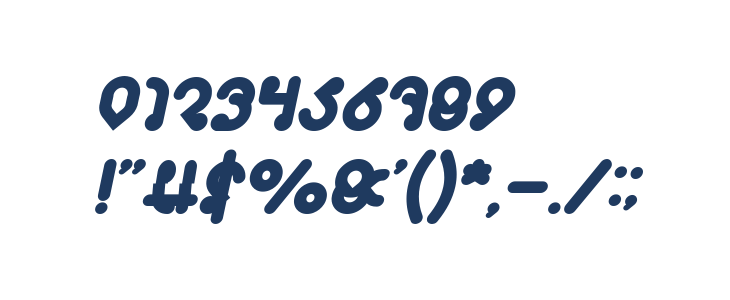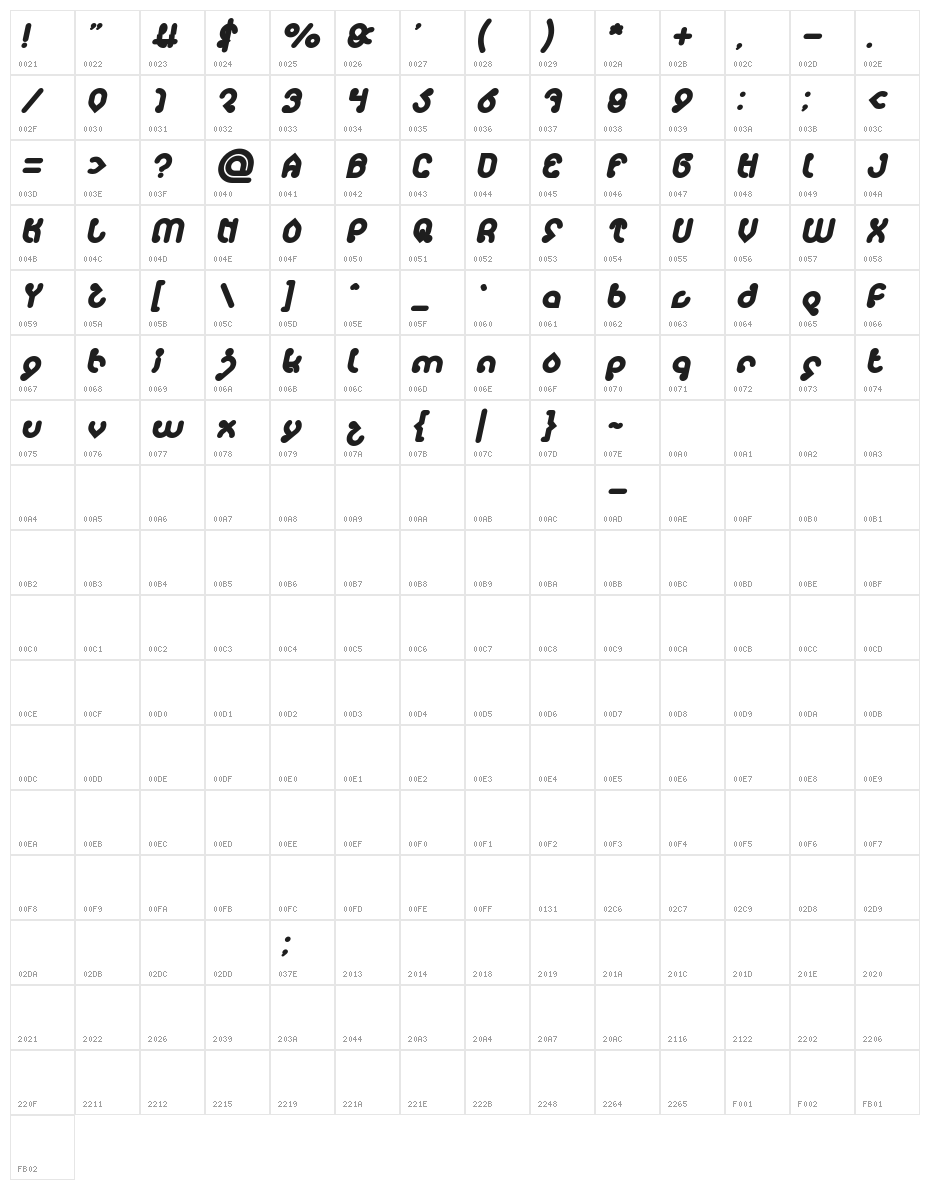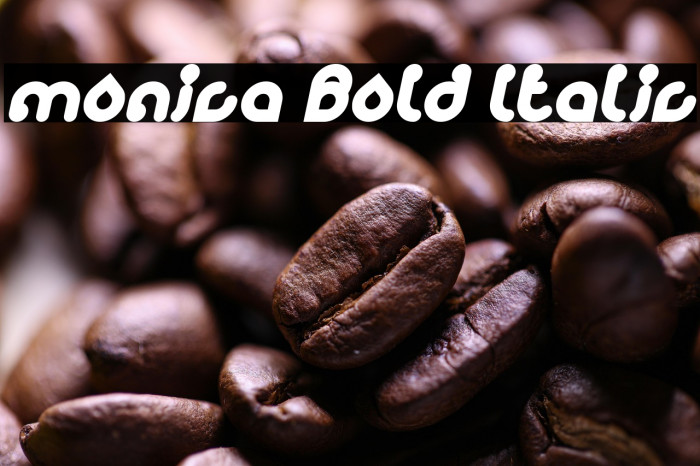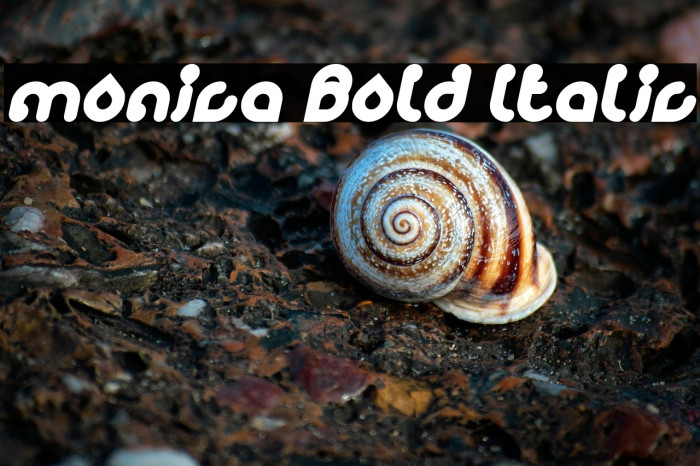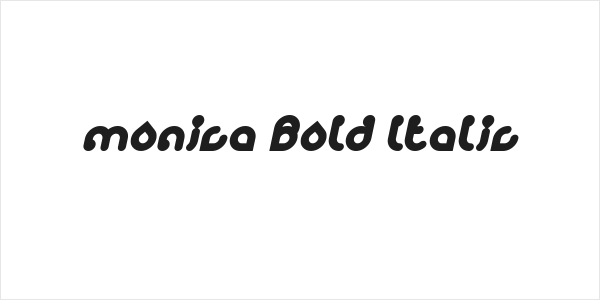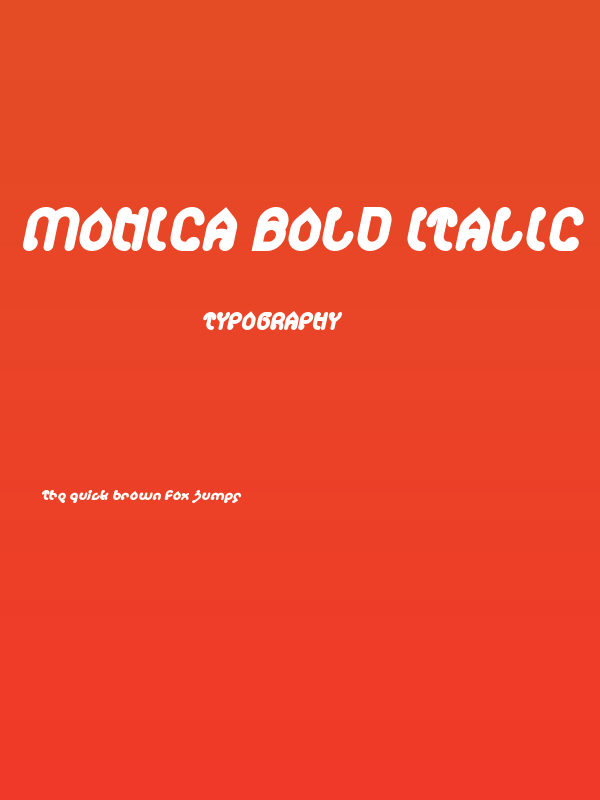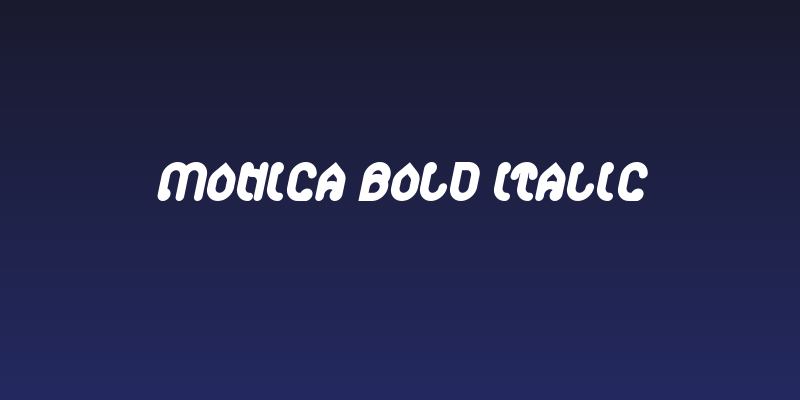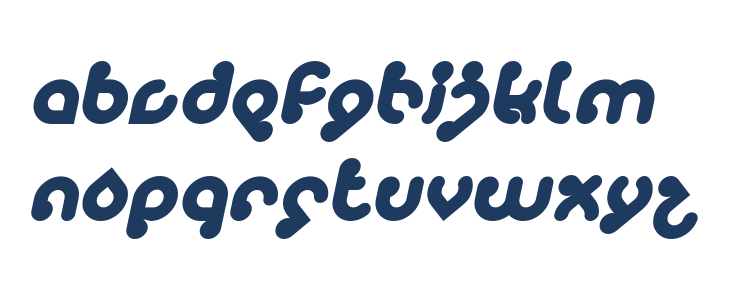
monica Bold Italic Font
monica Bold Italic Description
This font features a bold and italic style with a playful and rounded appearance. The characters are thick and have a smooth, flowing design that gives them a sense of movement. The uppercase and lowercase letters maintain a consistent style, with rounded edges and a slightly slanted orientation, enhancing the italic effect. The numbers and special characters follow the same design principles, ensuring uniformity across all glyphs. This font's boldness makes it highly legible, while its unique style adds a touch of creativity and fun.
| Overall Style | Playful and Modern |
| Proposed Projects | Ideal for creative projects such as children's books, playful branding, posters, and greeting cards. |